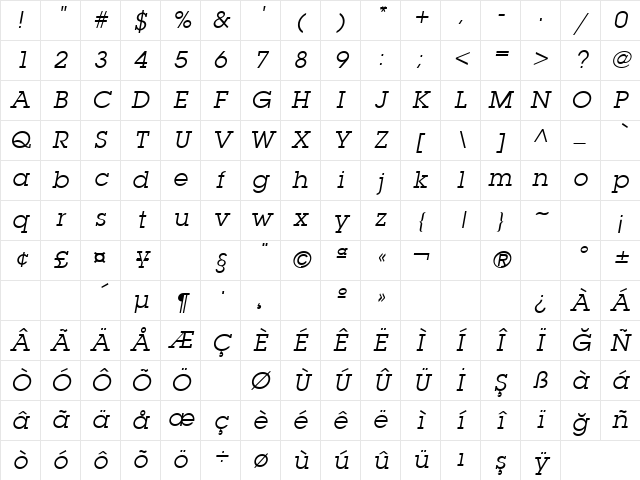
TR McLean Italic Free Font
TR McLean Italic
Design Context for TR McLean
TR McLean is a composed and adaptable typeface that performs quietly and consistently across a wide range of design contexts. The slanted form adds forward momentum and visual energy.
Pro Tip: Use TR McLean for emphasis, pull quotes, and subheadings where its slanted energy can add rhythm to the layout.